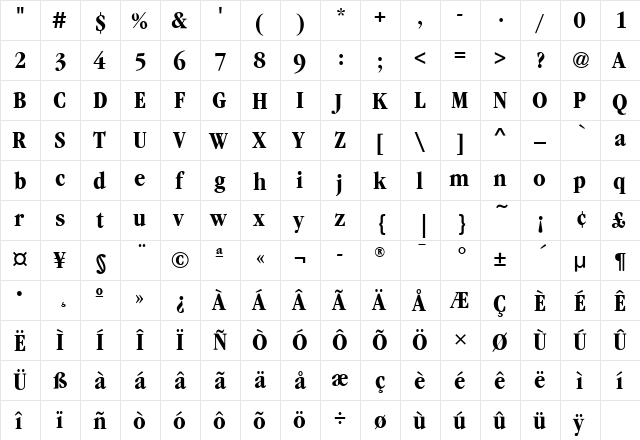
GaramondLitCdITC Bold
Design Context for GaramondLitCdITC Typeface
GaramondLitCdITC is a composed and adaptable typeface that performs quietly and consistently across a wide range of design contexts. Its bold stroke weight gives it real presence on the page.